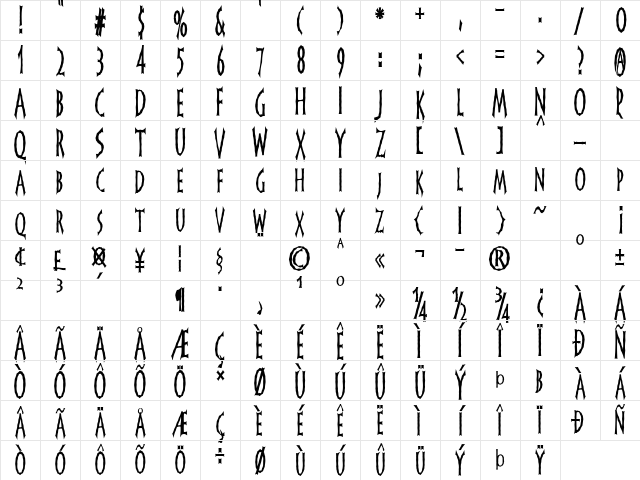
FrankenDork Tall Regular Free Font
FrankenDork Tall Regular
Design Context for FrankenDork Tall
FrankenDork Tall is a composed and adaptable typeface that performs quietly and consistently across a wide range of design contexts.